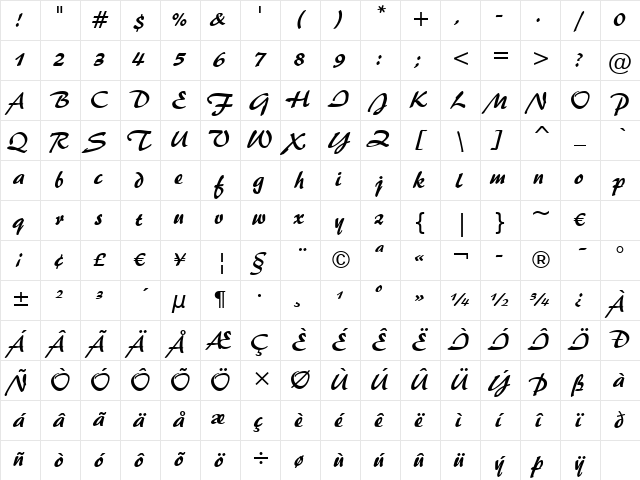
font75 Regular
Complete font75 Regular glyph index. Displaying only characters natively supported by font75 Regular font.
Design Context for font75
font75 is a composed and adaptable typeface that performs quietly and consistently across a wide range of design contexts.